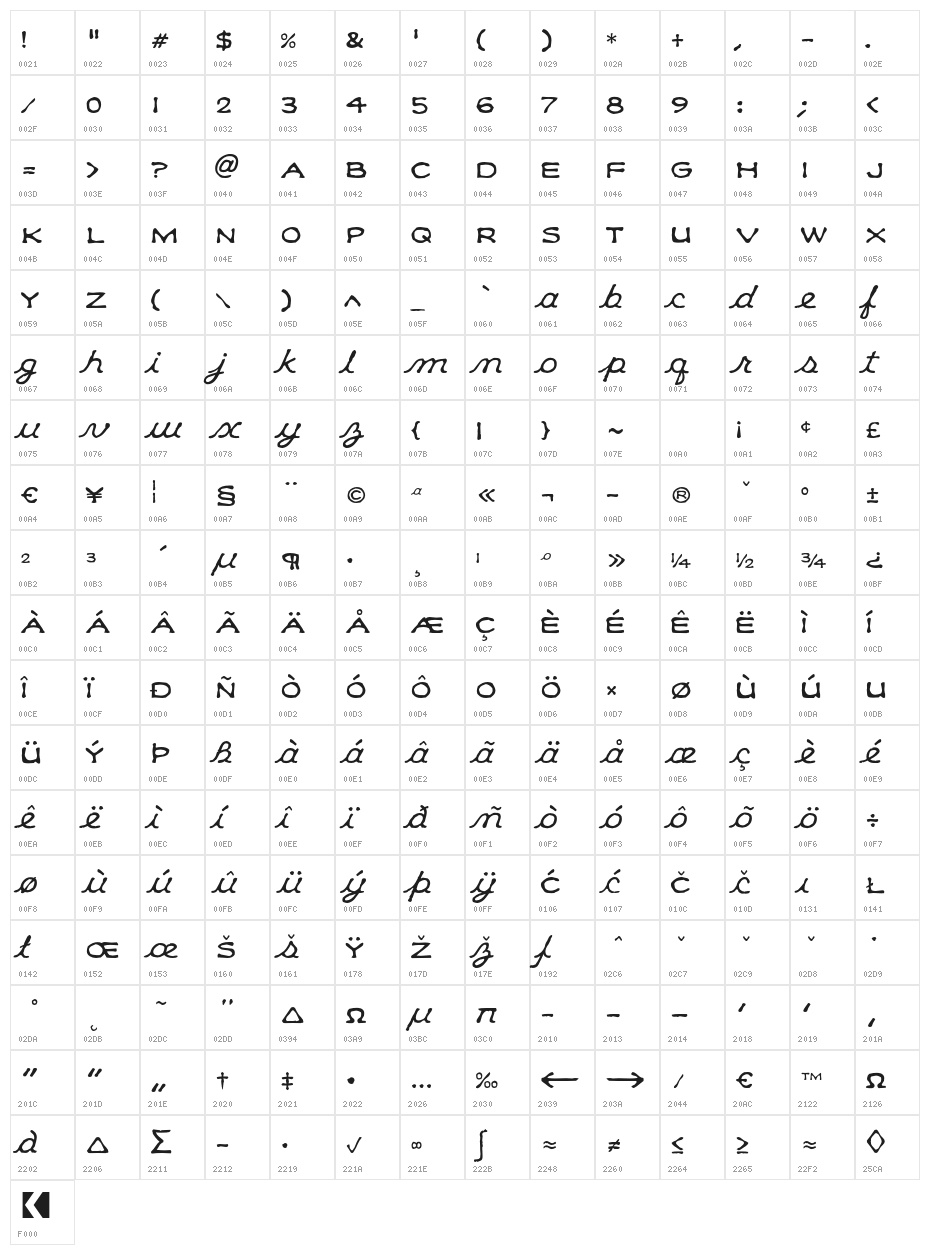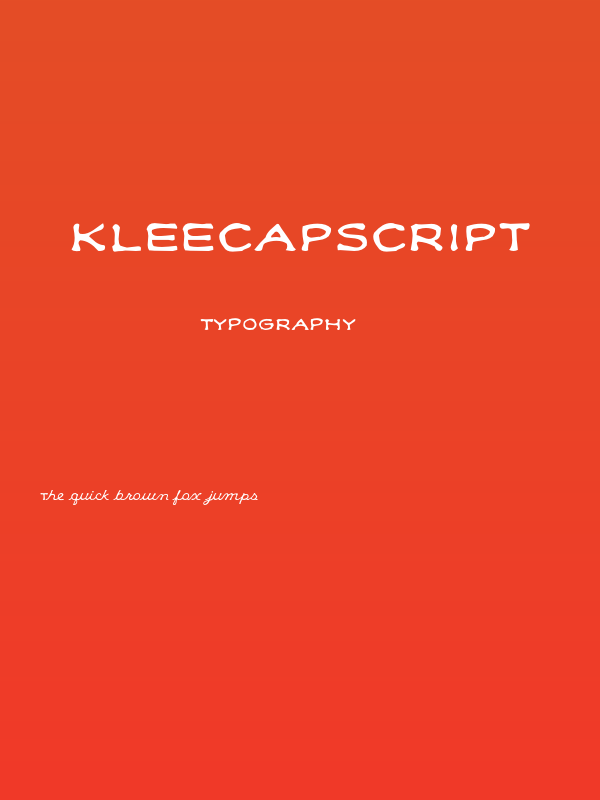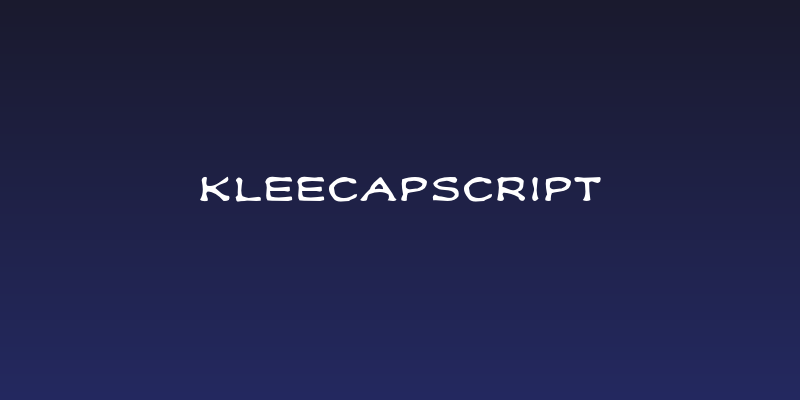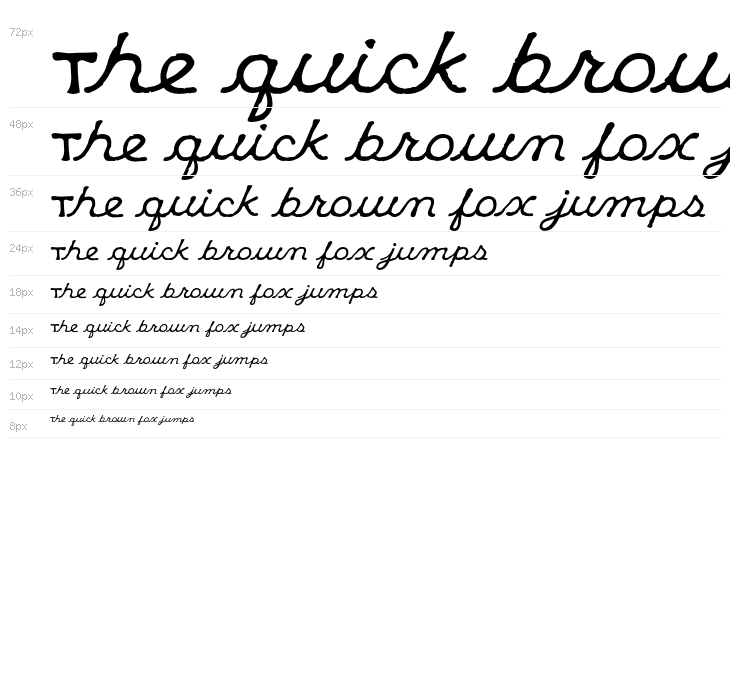
KleeCapScript Font
| Gesamtstil | Casual, Handwritten |
| Anwendungsfall | Logos, Invitations, Greeting Cards |
| Vorgeschlagene Projekte | Ideal for greeting cards, invitations, personal branding, and creative projects that require a personal, handwritten touch. |